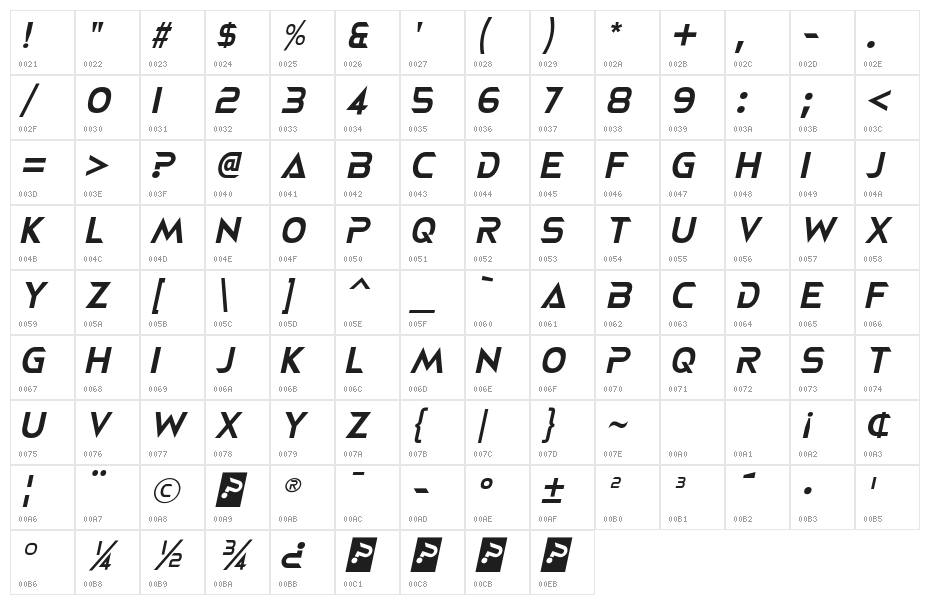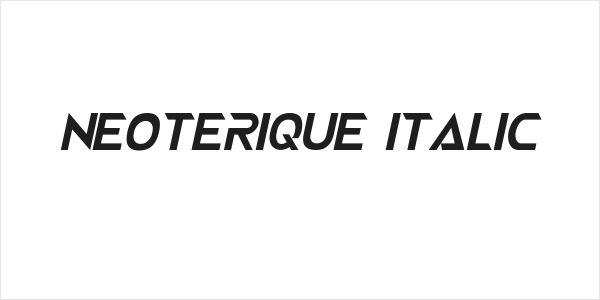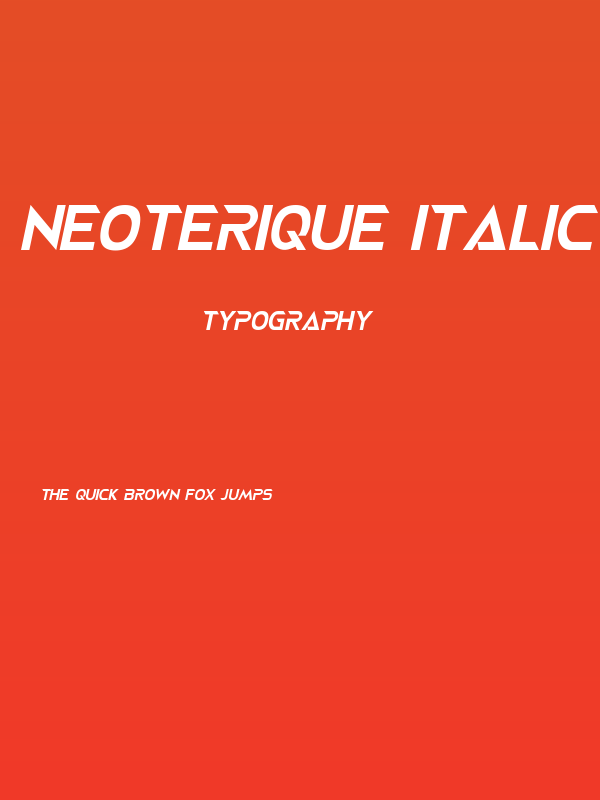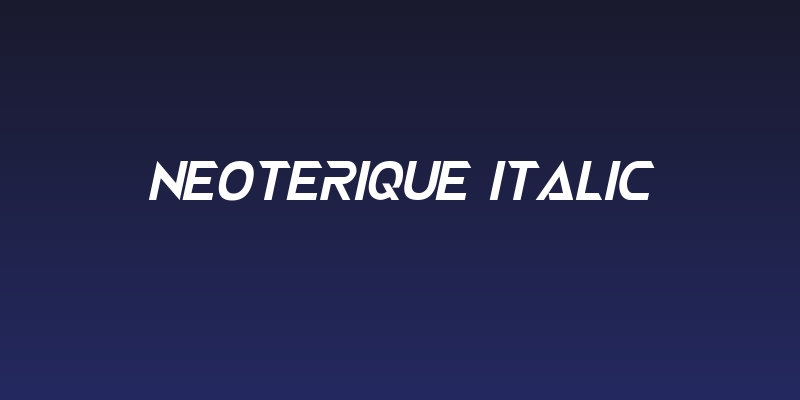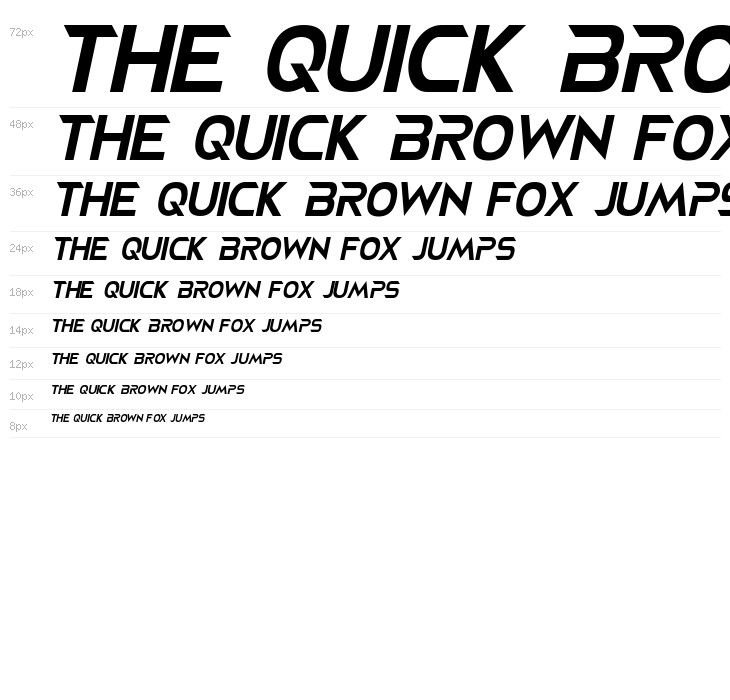
NEOTERIQUE Italic Font
NEOTERIQUE Italic Description
This font exhibits a modern, sleek design with a distinct italic slant, giving it a dynamic and forward-moving appearance. The characters are bold and angular, with sharp edges and a geometric structure that conveys a sense of precision and speed. The uppercase and lowercase letters maintain a consistent style, with uniform stroke widths that enhance readability. The numerals and special characters are designed to match the overall aesthetic, ensuring a cohesive look across all text elements. This font's contemporary style makes it suitable for a variety of digital and print applications.